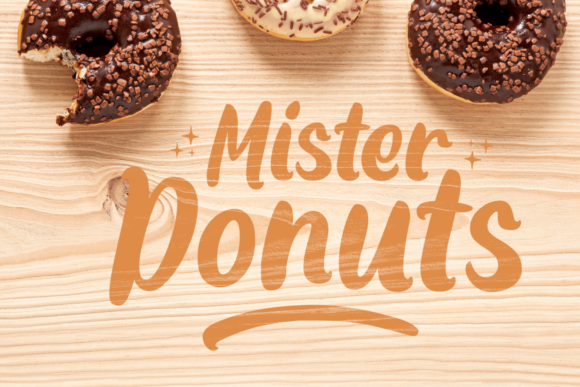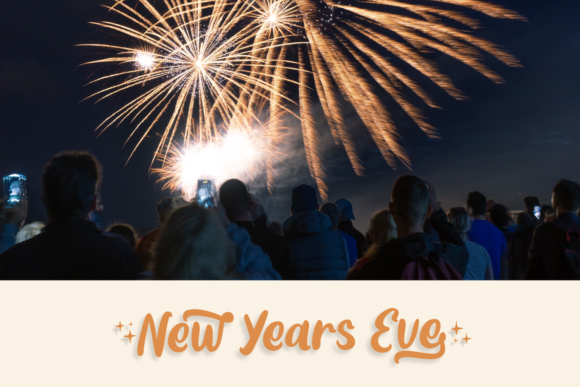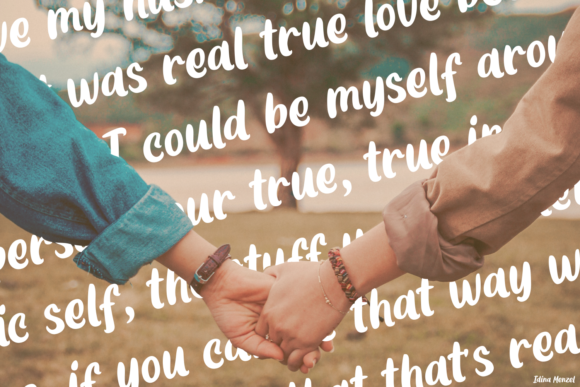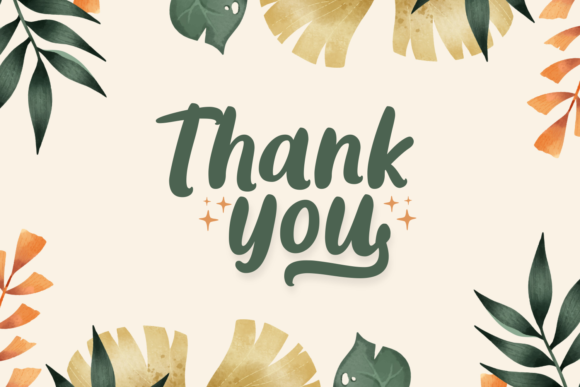
Introduction to Herlina Font
Herlina is a smooth display font.
It has lovely swashes It will take your designs to the next level.
Key Features of Herlina Font